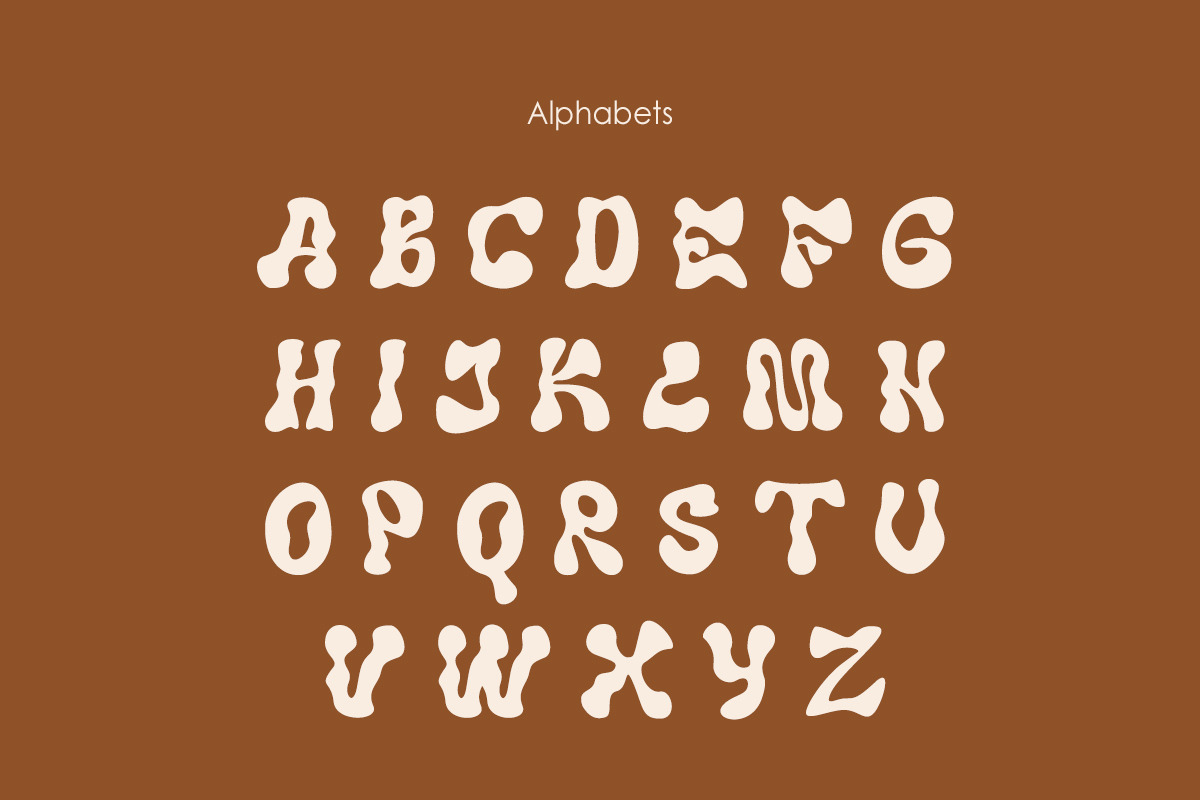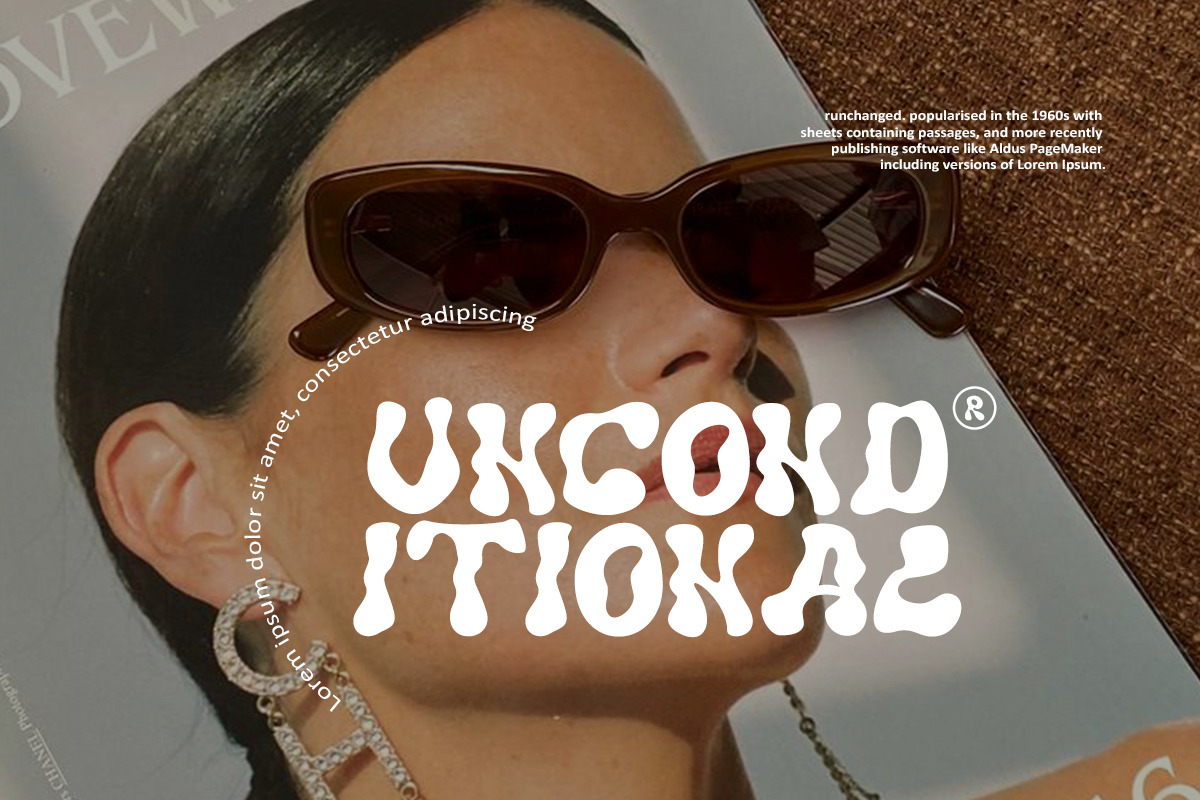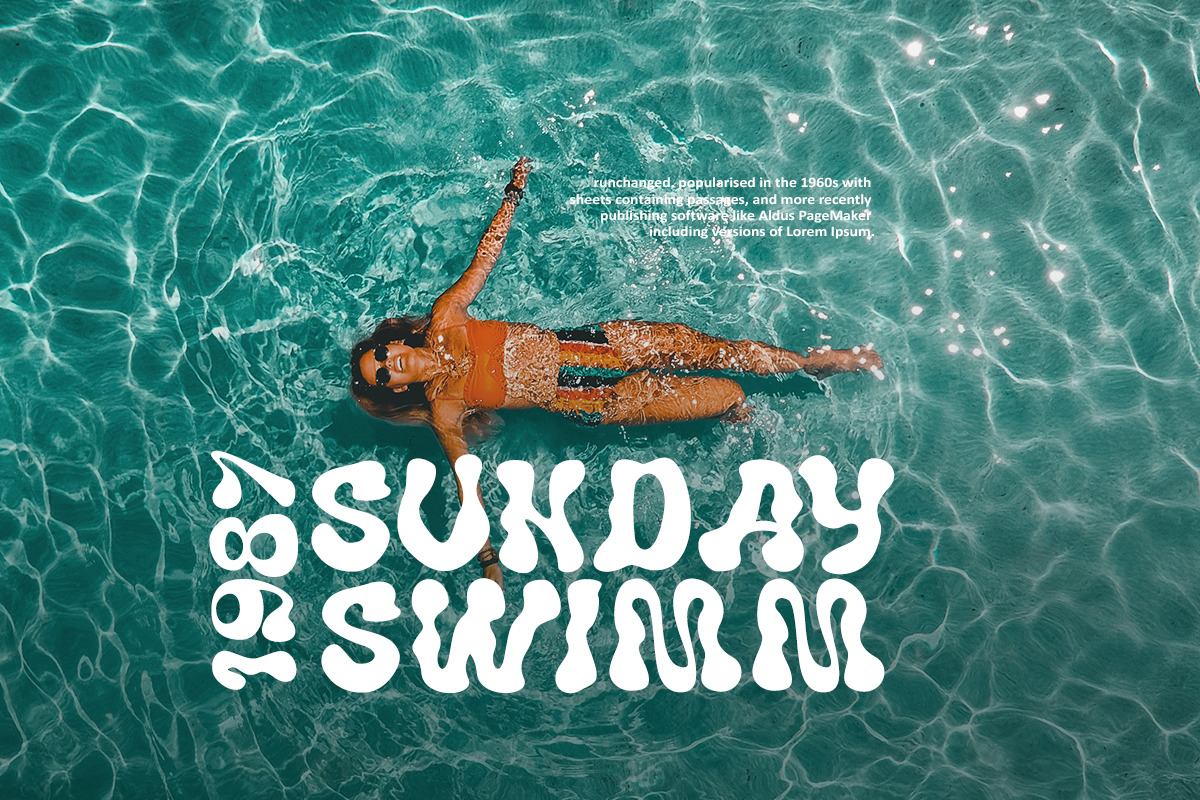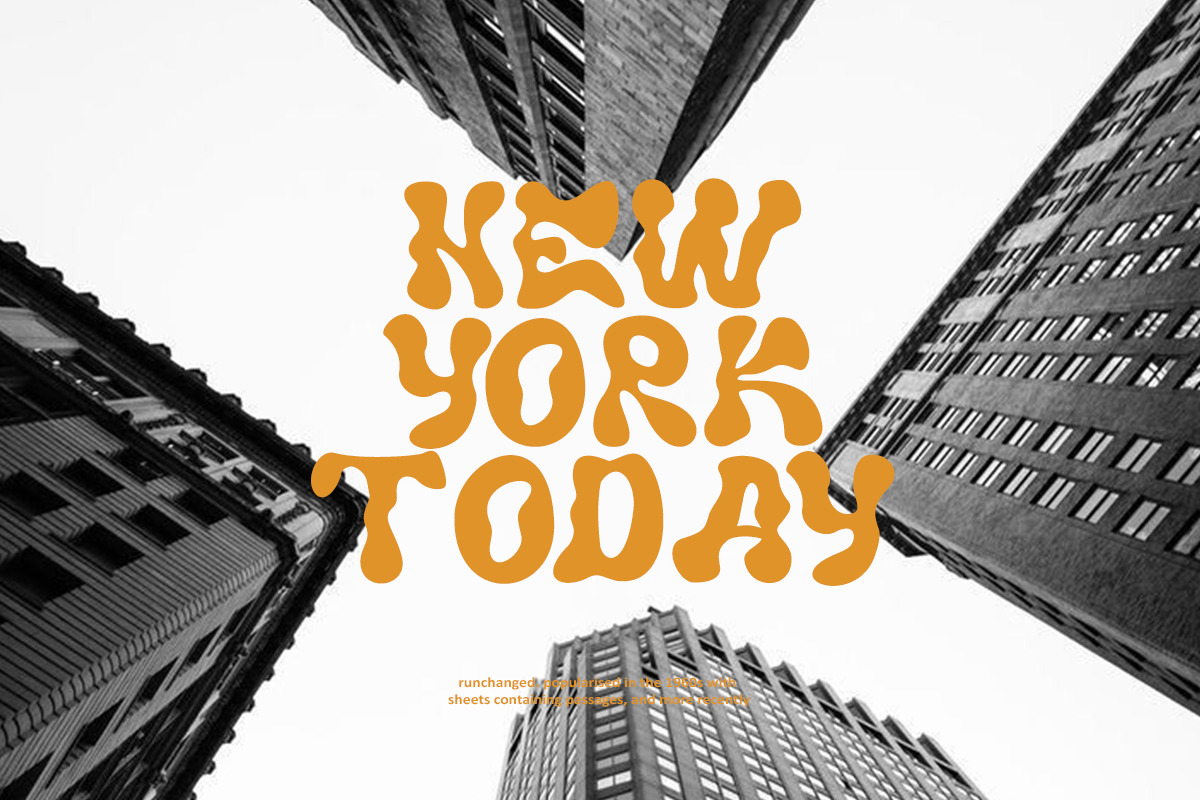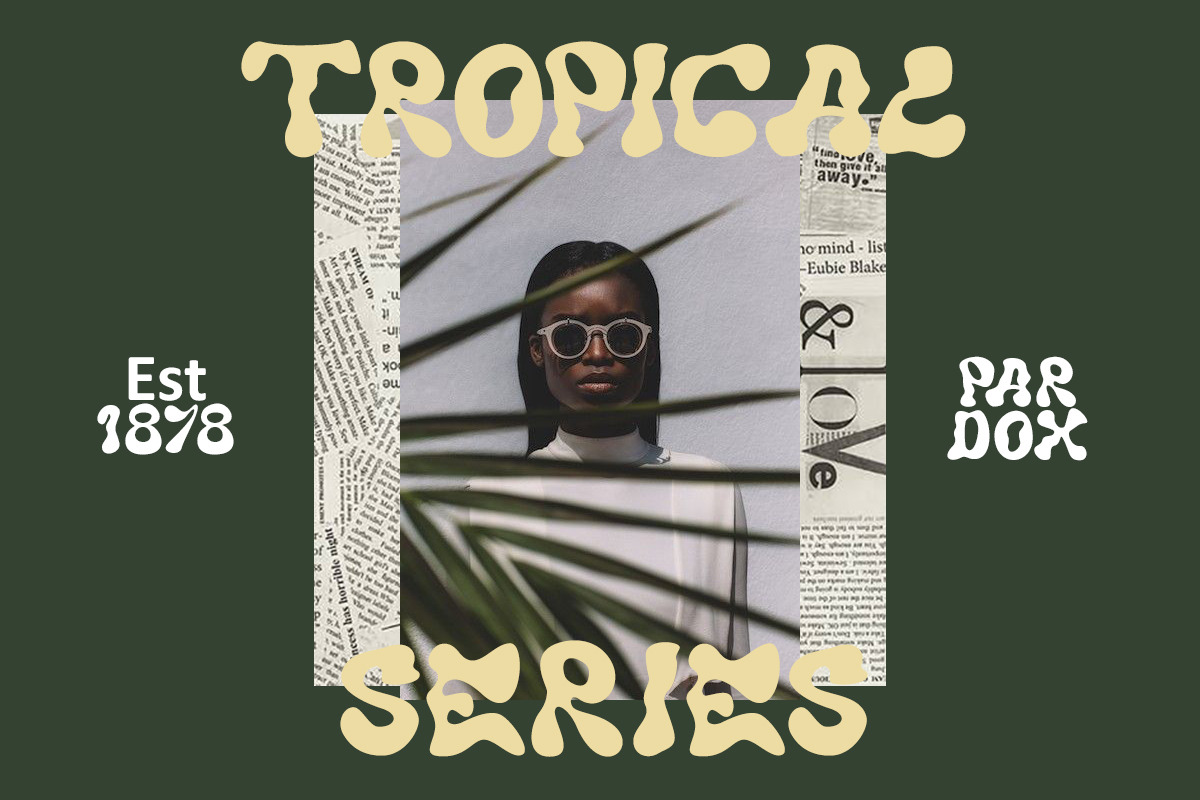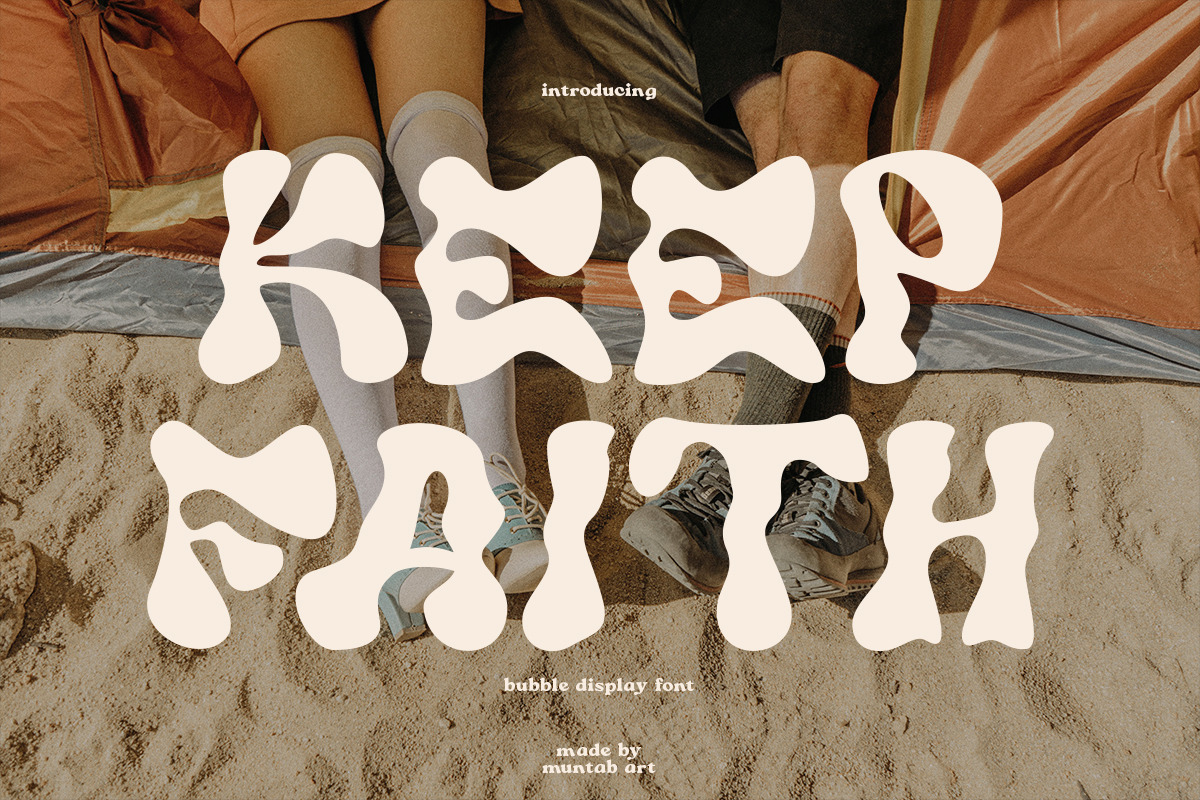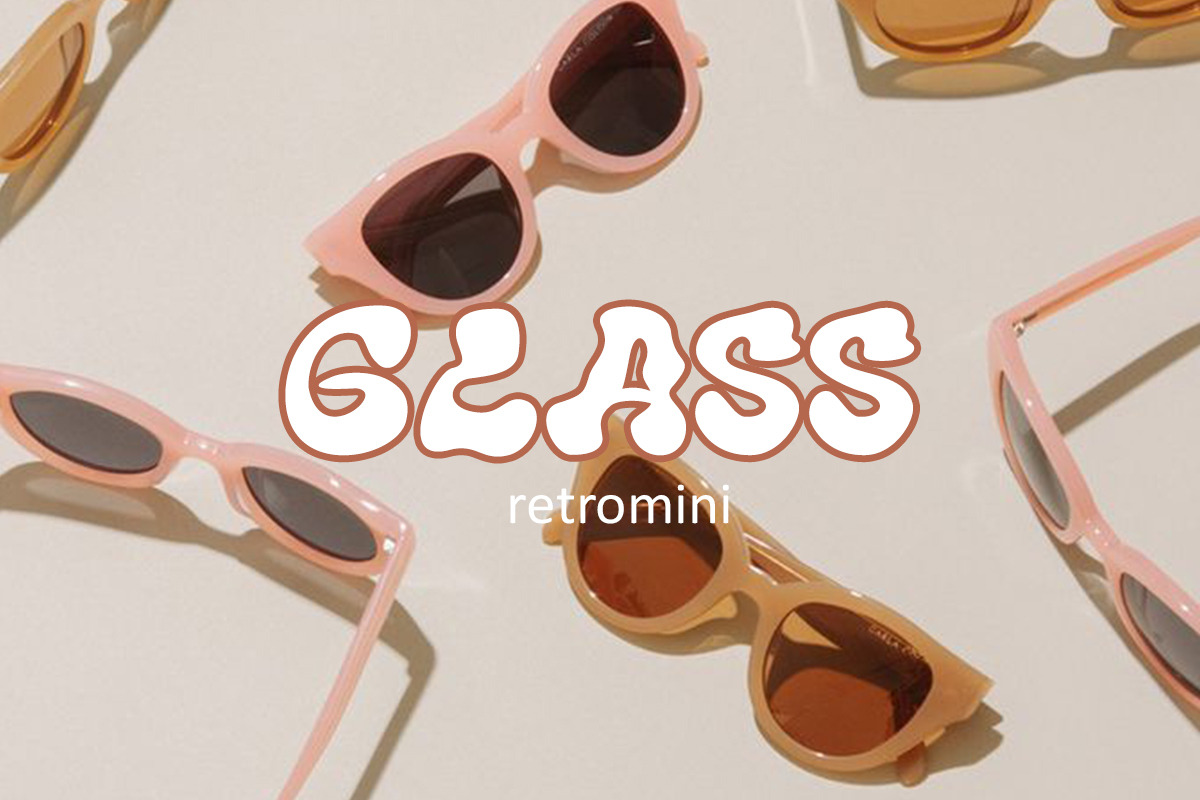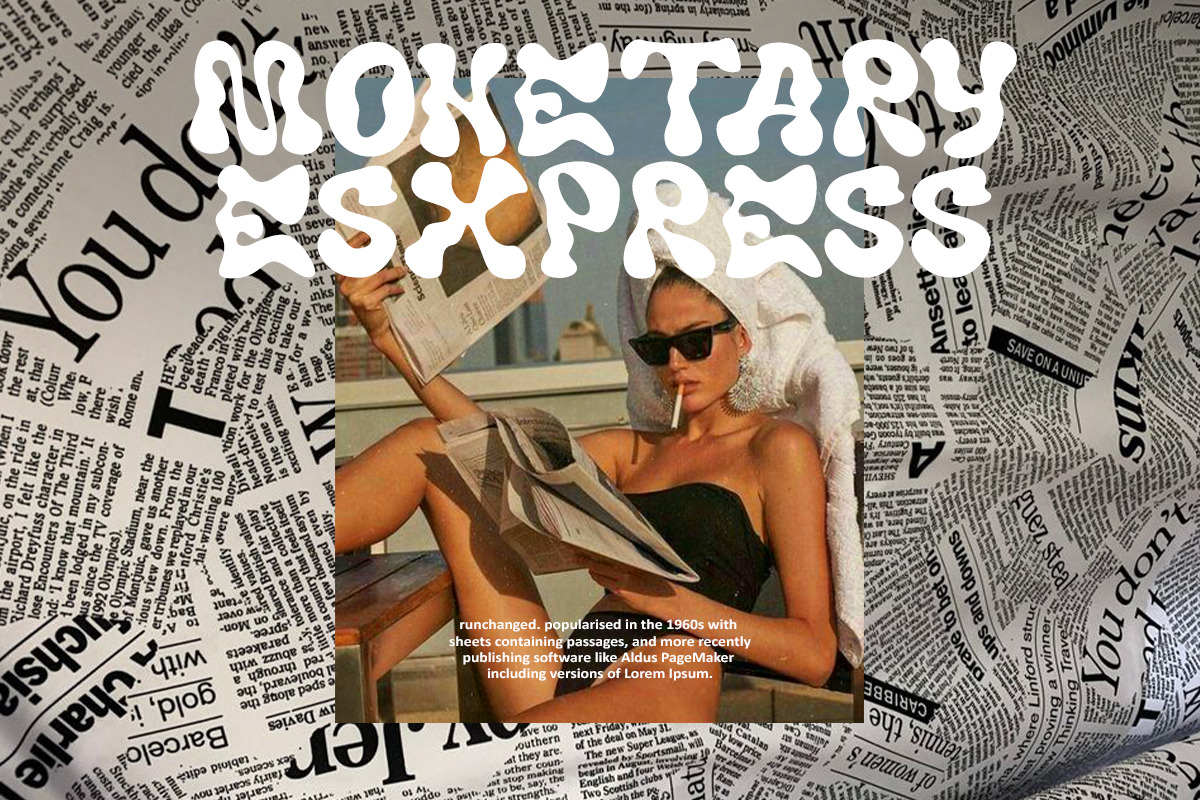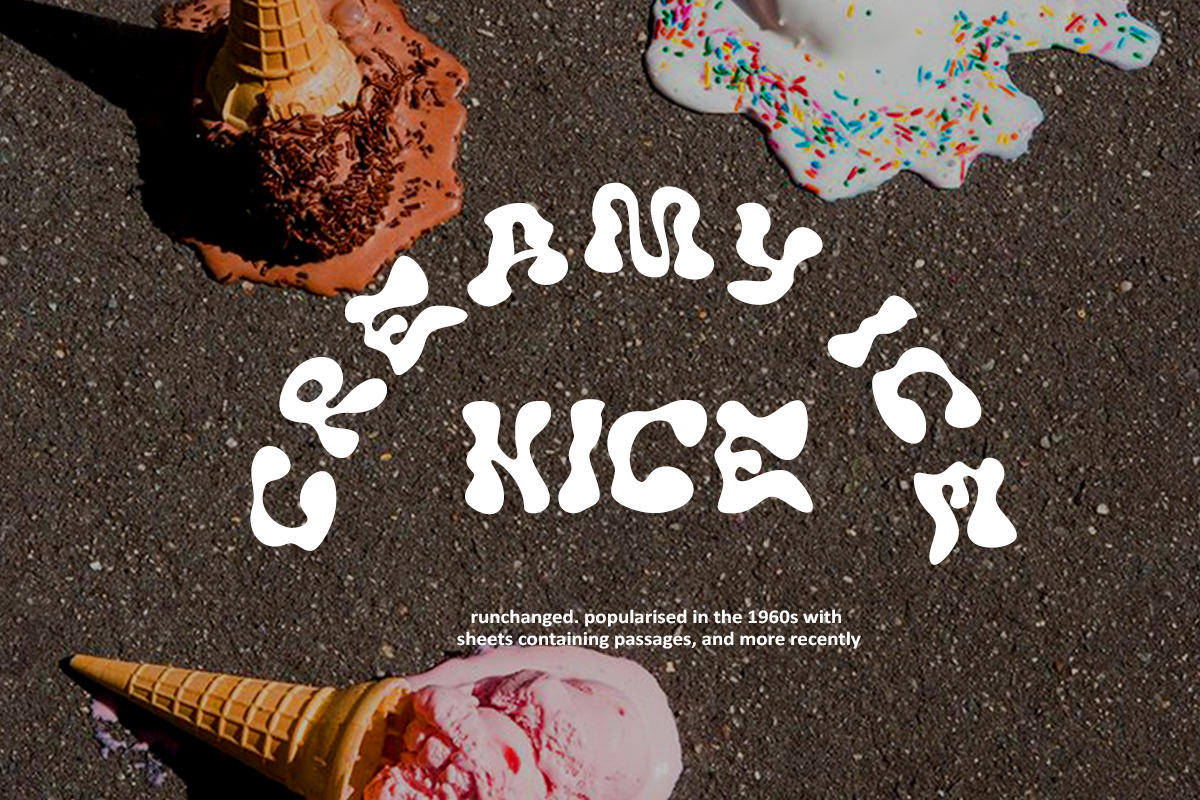
Keep Faith Display Font
Keep Faith fonts include uppercase letters, lowercase letters, numerals, a large range of punctuation. Bubble font with retro style. Created for poster, web design, branding, illustrations, badges, and some other works.